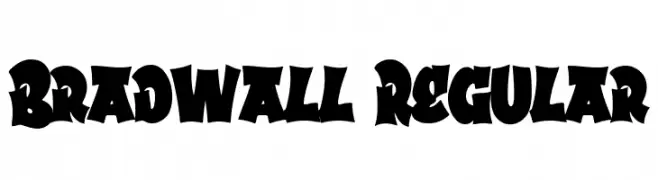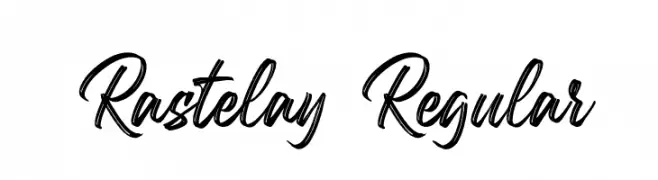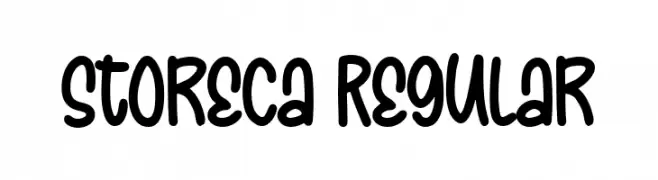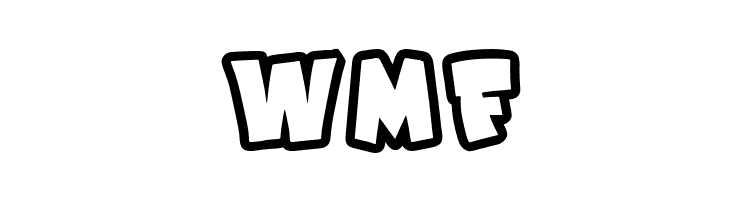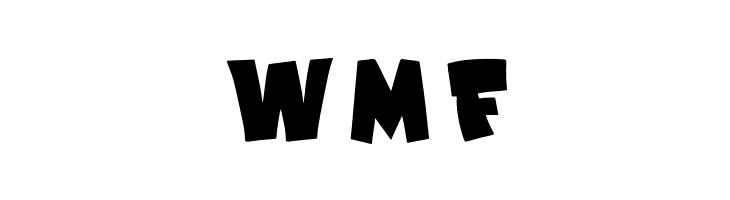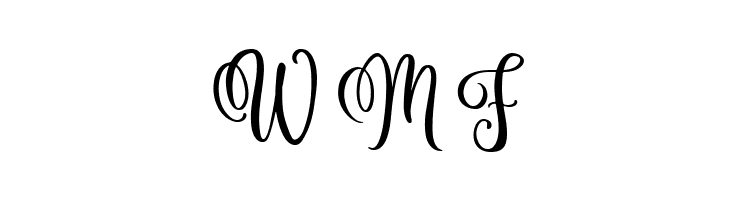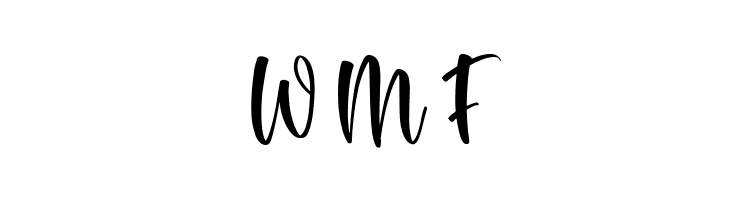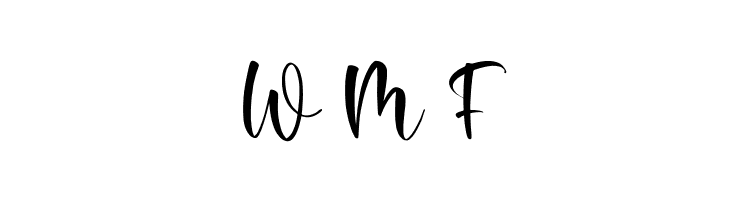
• Storeca Regular
( Fonts by Bangkit Tri Setiadi )
A bold, playful handwritten font with rounded edges and a casual style.
• Blood Blaster Outline
( Fonts by Bangkit Tri Setiadi )
A bold, playful outline font with a cartoonish and energetic style.
• Blood Blaster
( Fonts by Bangkit Tri Setiadi )
A bold, dynamic font with exaggerated strokes and a playful, chaotic style.
• Bradwall Regular
A bold, playful font with exaggerated curves and sharp angles.
• Happy People Regular
A playful and whimsical script font with decorative loops and swirls.
• Winter Sunday Regular
A bold, winter-themed font with snow-capped letters, perfect for festive designs.
• Stay Girly Regular
A playful, cursive font with a bold, hand-drawn style.
• madelia Regular
A playful and elegant script font with fluid, connected letterforms.
• Rastelay Regular
A dynamic and elegant script font with fluid, connected letterforms.
• Andoly Cokie Regular
A playful, bold script font with a handwritten style and smooth, rounded characters.